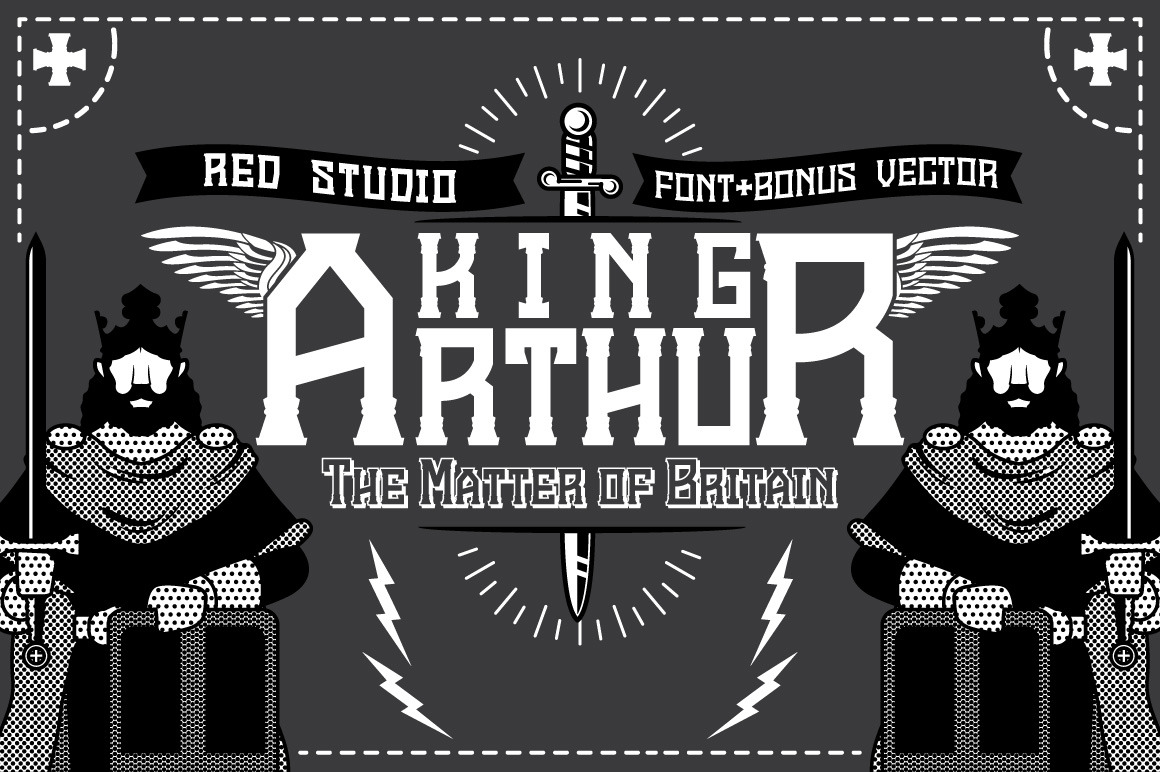
King Arthur is the font that inspired by chess and castle shaped. King Arthur Font is suitable for many design jobs like poster, t-shirt, logotype, music album, movie/story title, and many more... sky is your limit. There's many free vectors (icon and character) as a bonus for al of you who buy this font. We hope you like it :) Many thanks.Cheers! :))